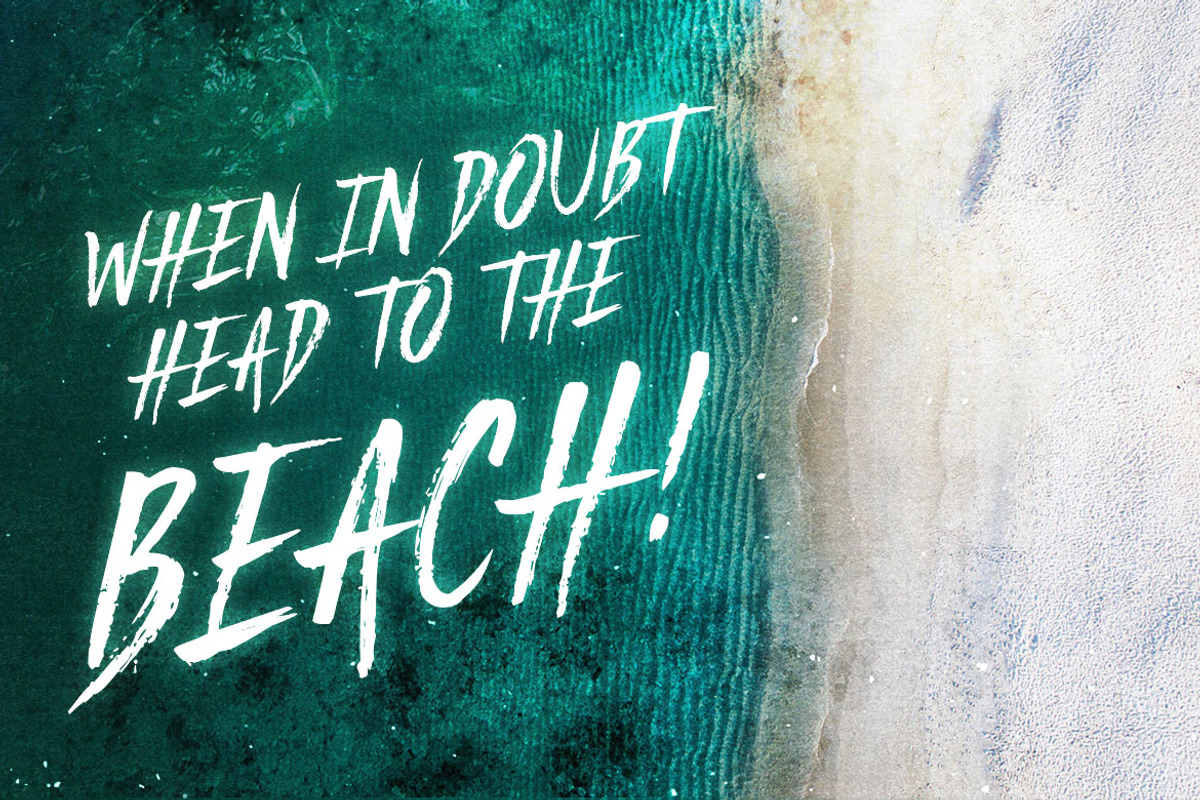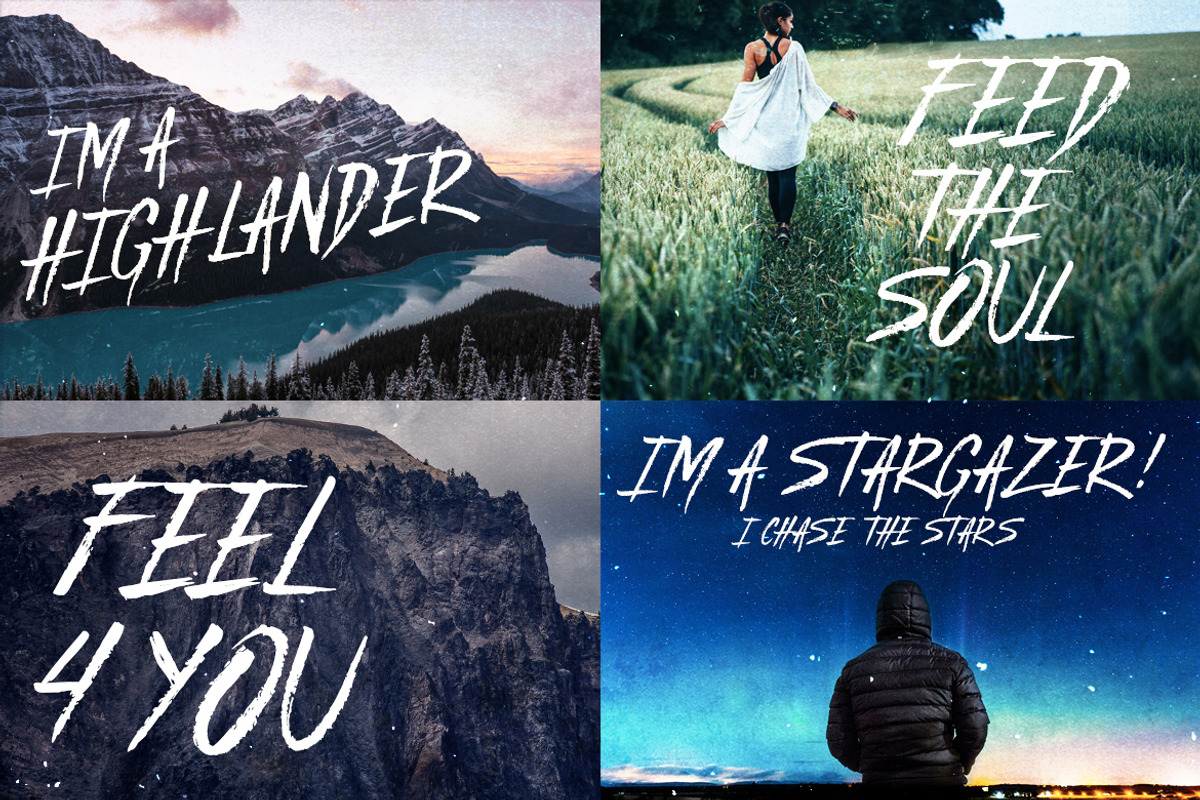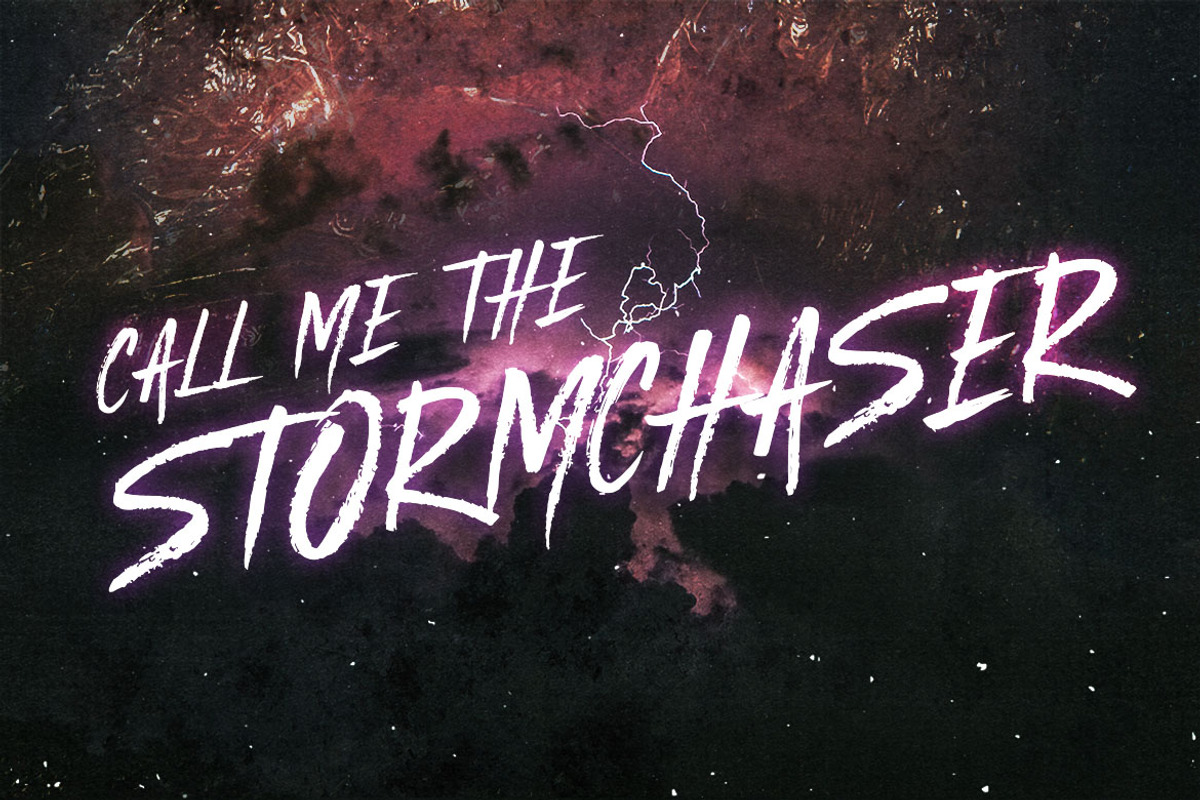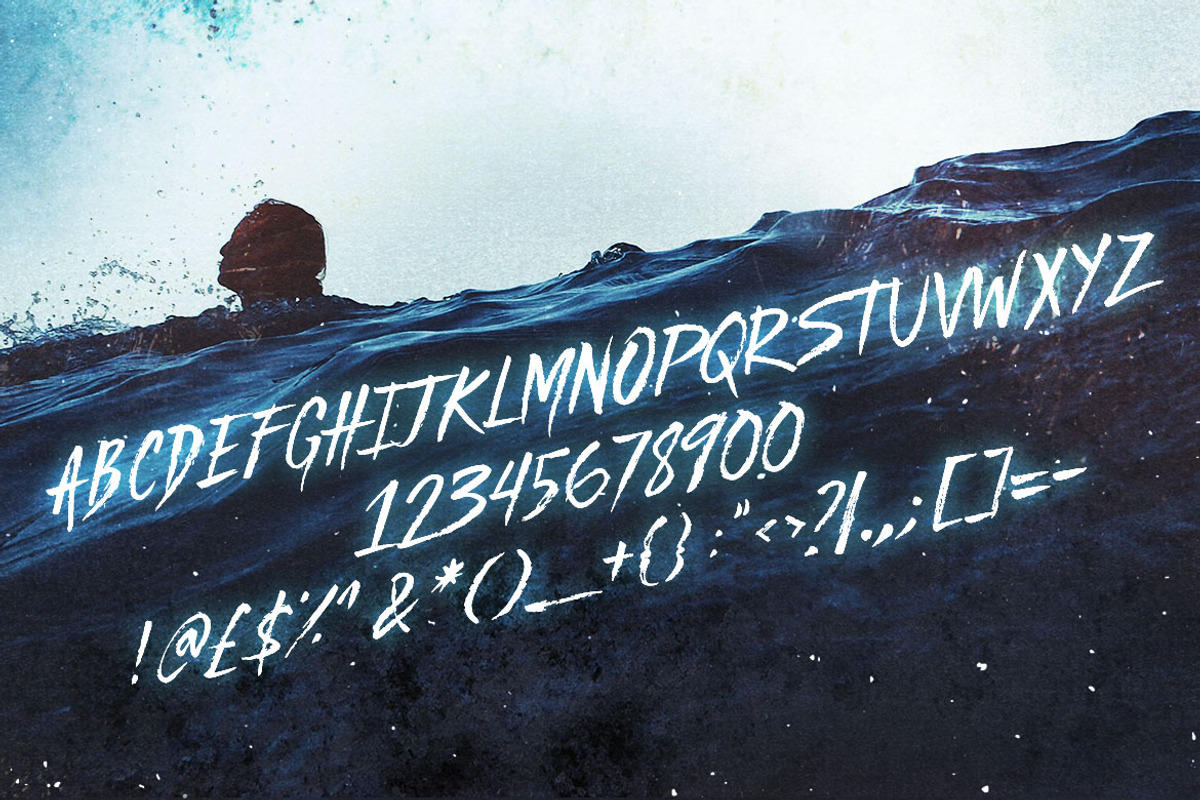
Coast 2 Coast - Typeface
Coast 2 Coast - Typeface by Layerform Design Co. is a font selected for branding, posters, packaging, typography.
Why Coast 2 Coast - Typeface is worth a look
Coast 2 Coast - Typeface by Layerform Design Co. fits naturally into Branding, posters, packaging, typography.